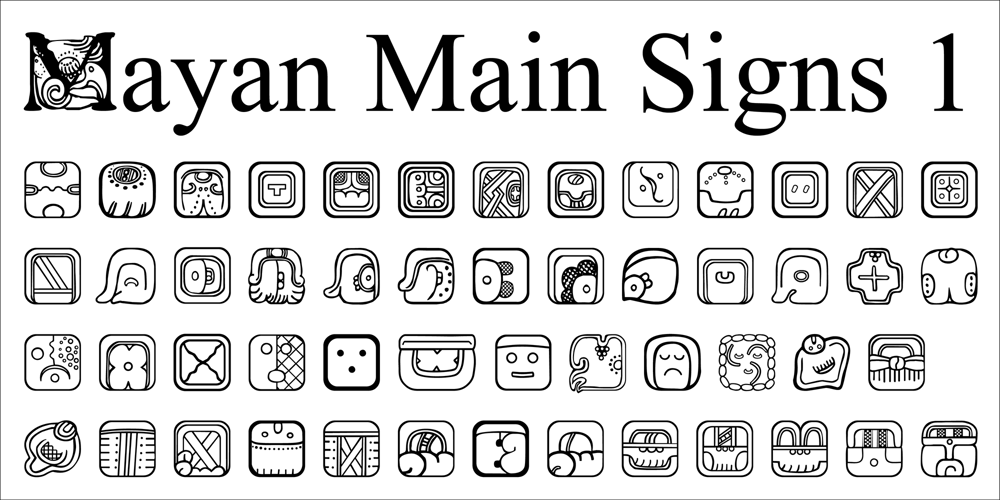
Mayan Main Sign 1 Font Family was designed by Scott T. Smith and published by Bonneville Electronics. Mayan Main Sign 1 contains 1 styles and family package options. The Mayan Project is a Language System.”Main Sign 1″ is part of a bundle, The Mayan Project, but can be used independently.This is the first in a set of Main Signs inspired by “A Catalog of Maya Hieroglyphs by J. Eric S. Thompson.”The glyphs are set in order on the keyboard the same as in the catalog.First type the desired Front affix and a Main Sign. Top, Bottom and Back Affixes are then placed to make a word.Affixes are zero-width fonts. Not much good on their own without a lot of spaces. They are to be used with Main Signs and Portraits. The Mayan Project’s 2000 plus glyphs enables you to build complicated affix and main sign compilations.Designed for:Mayan research: Books, magazines, papers, online content, translation work, maps, Mesoamerican Studies, language study . . . etc..Advertising: Dig sites, vacation, community awareness,Art projects, web pages and contentPHDs, archaeologist, students . . . etc. . . .